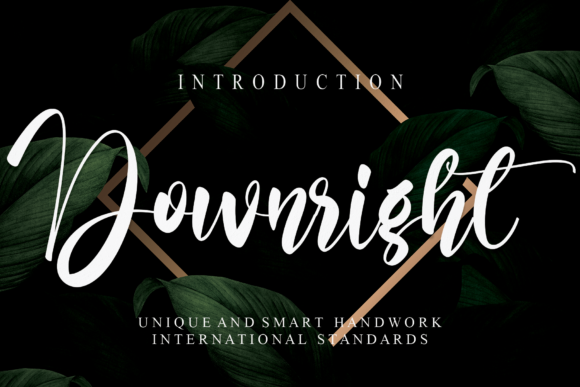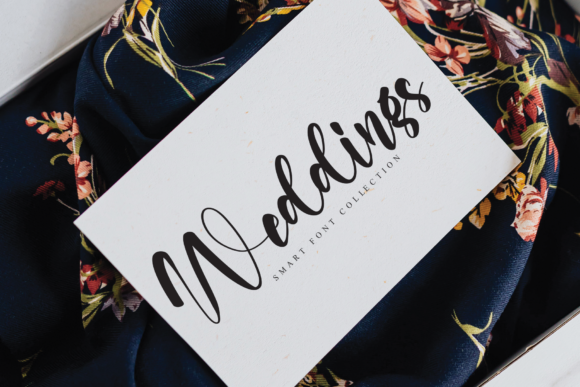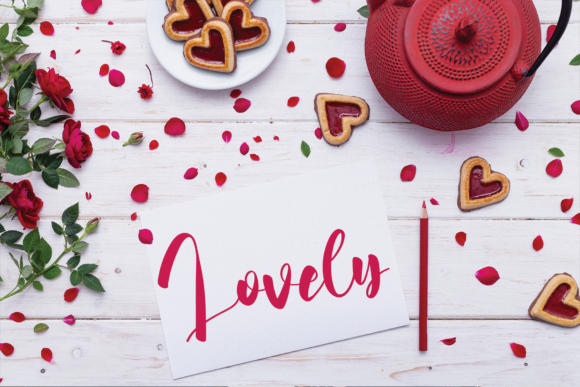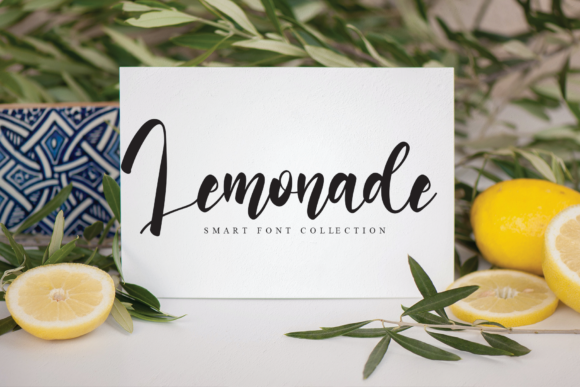
Downright Font
About Downright Font
Downright is a classic handwritten font that exudes charm and versatility. With its timeless appeal, this script font can be used in a wide range of applications, from greeting cards to kids’ crafts, bringing a sweet touch to your next design.
The classic nature of Downright adds a sense of nostalgia and warmth to your typographic compositions. Its handwritten style creates a personal and authentic feel, evoking a sense of connection and familiarity. Whether you’re working on invitations, labels, posters, or any other project, Downright font enhances the overall visual appeal with its classic and endearing demeanor.
Downright’s versatility lies in its ability to adapt to various design contexts. Its casual and friendly appearance makes it suitable for both formal and informal projects. Whether you’re creating designs for a playful kids’ party or a heartfelt greeting card, Downright font adds a sweet and personal touch, enhancing the overall aesthetic.
Incorporating Downright into your designs allows you to infuse them with a sense of sweetness and charm. Its classic handwritten style brings a touch of authenticity and warmth, making your designs visually appealing and engaging.
In summary, Downright is a classic handwritten font that adds a sweet touch to your designs. Its versatility and timeless appeal make it suitable for various applications, from greeting cards to kids’ crafts. Embrace the charm of Downright font and let it bring a personal and endearing touch to your next design.